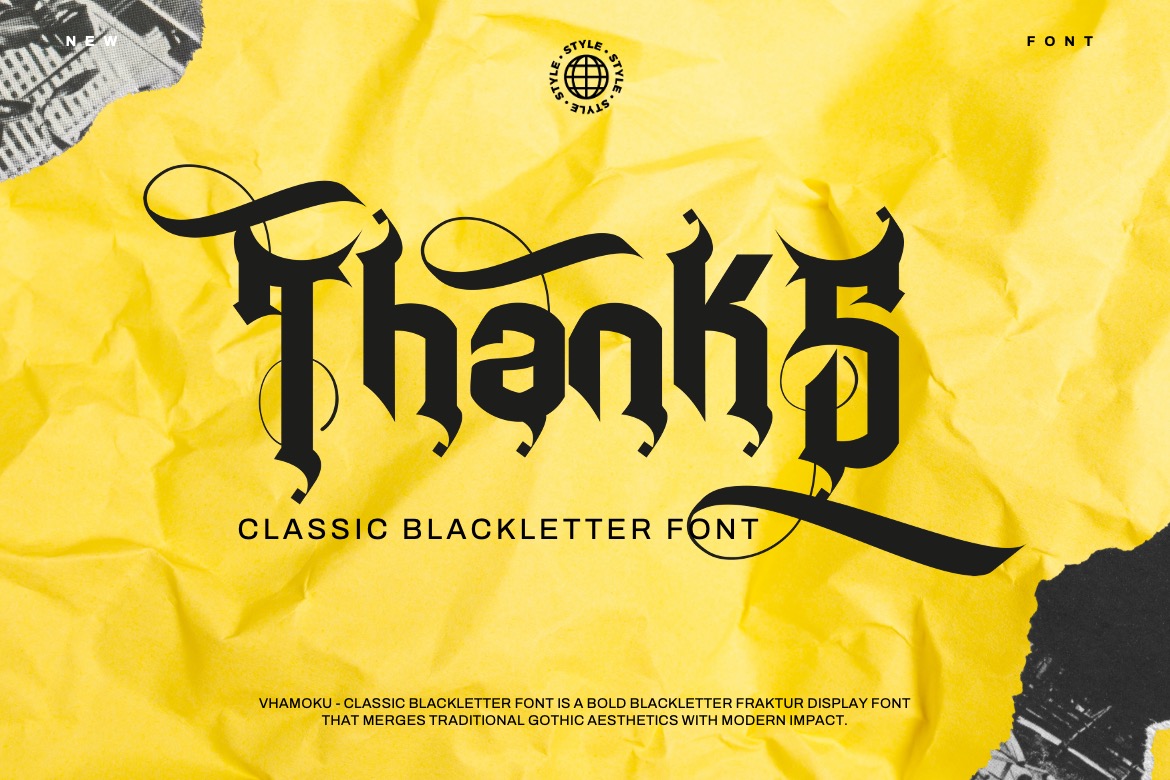
Vhamoku is characterized by bold, angular blackletter strokes with sharp terminals and strong contrast. Its letterforms immediately stand out through a strong vertical emphasis, pointed serifs, and fractured curves that reflect classic Gothic and Fraktur traditions.
The characters tend to have a compact and tight construction, giving the font a dense and powerful rhythm. Uppercase letters feel dominant and ceremonial, with dramatic ascenders, aggressive angles, and striking ornamental cuts. Lowercase characters are sharp yet more restrained, making them easy to read while still maintaining the font’s authoritative tone. Consistent weight and orderly spacing create a cohesive texture across words, reinforcing its classic blackletter identity.
Visually, Vhamoku performs exceptionally well on dark backgrounds, where its sharp edges and bold strokes appear striking. On light backgrounds, intricate details and angular cuts become more visible, highlighting the craftsmanship of each letterform. This contrast flexibility allows the font to adapt well to both modern and vintage-themed layouts.
Vhamoku truly shines in display use—especially for logos, headlines, posters, packaging, and branding. The font performs best at medium to large sizes, where its sharp details and blackletter character can fully stand out and assert their visual presence.